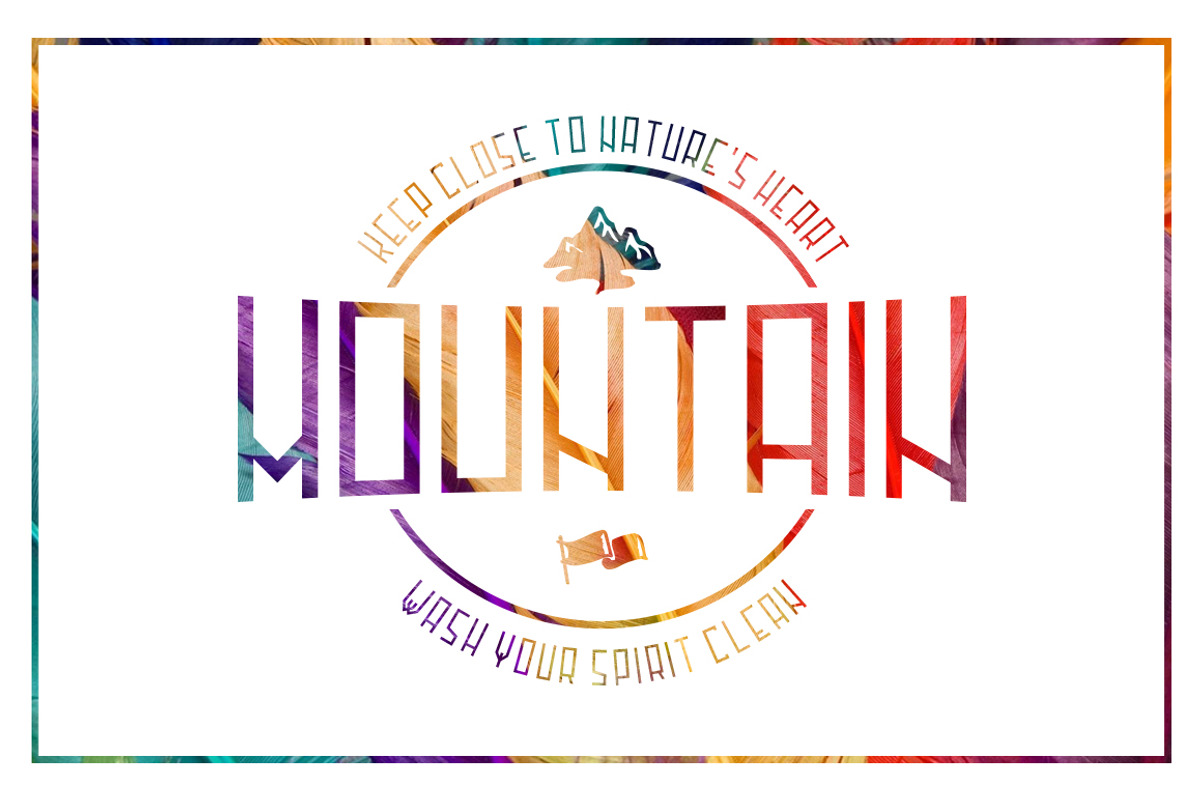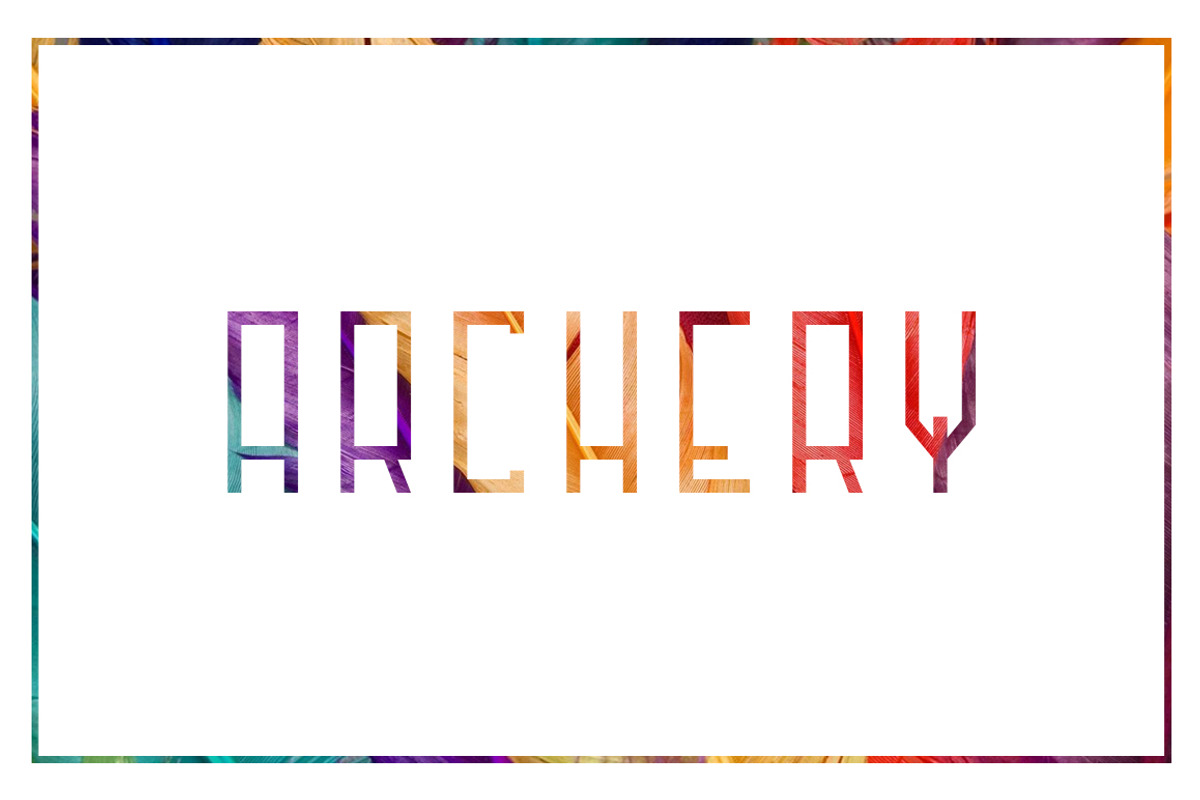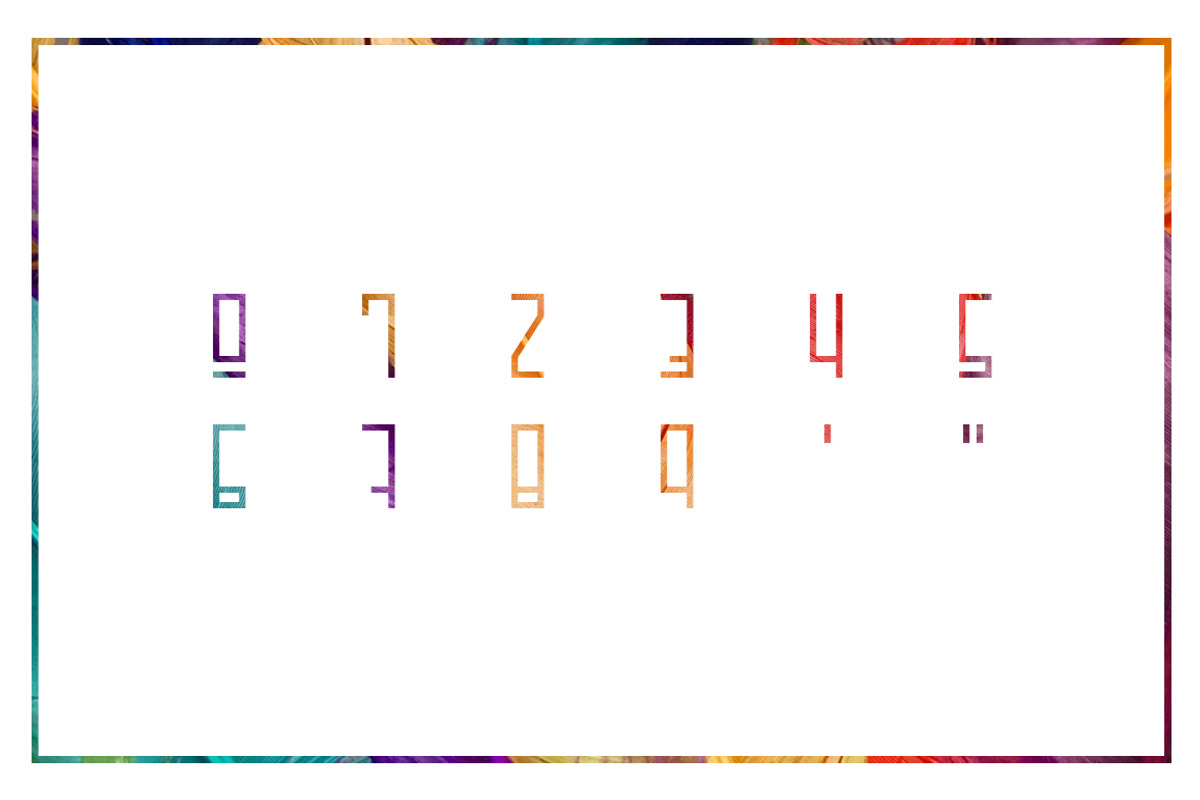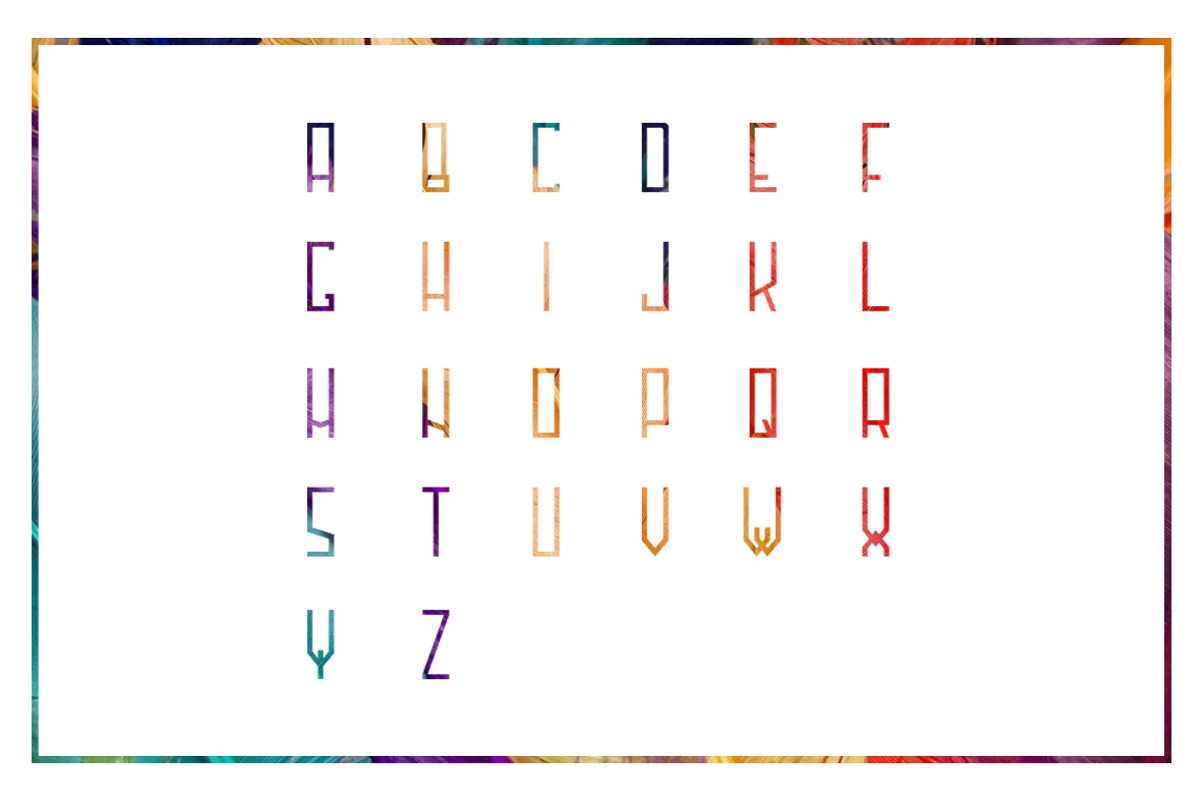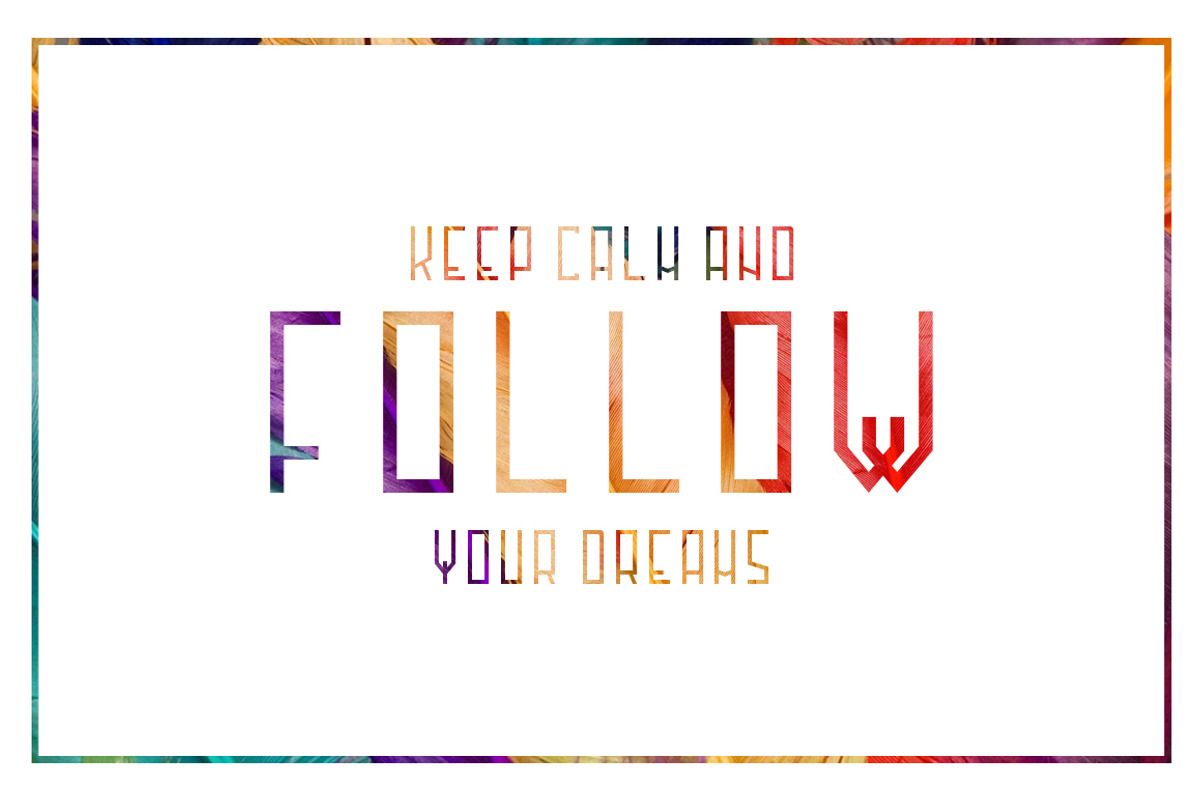
Archer Font
Archer Font by SNK's is a font selected for branding, posters, packaging, typography.
- The font has uppercase letters, numbers and two other base use glyphs.
Why Archer Font is worth a look
Archer Font by SNK's fits naturally into Branding, posters, packaging, typography.